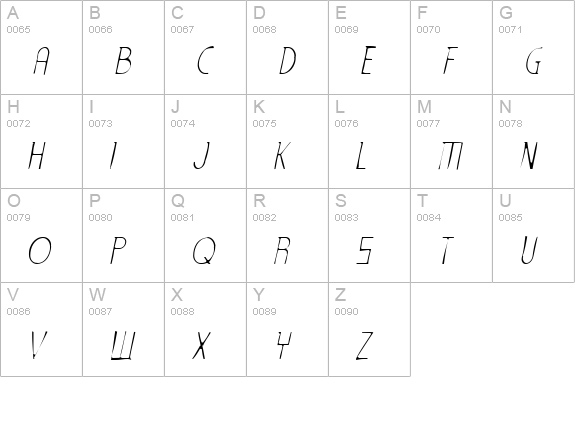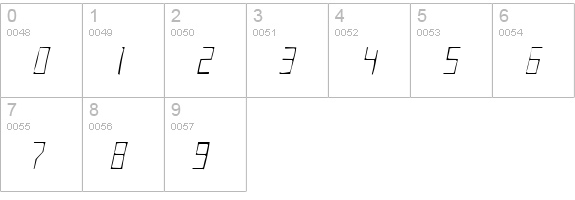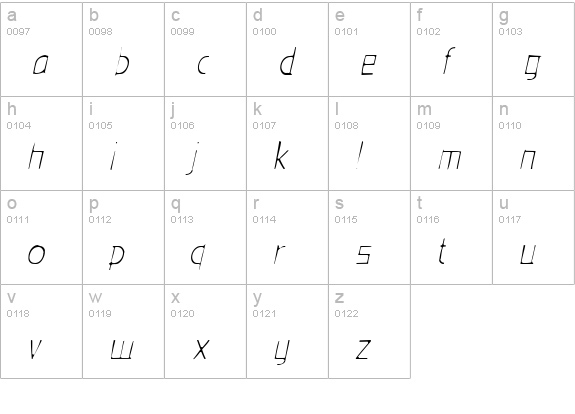
Eden Mills Gaunt Italic is a distinctive, italic variant in the Eden typeface family \xE2\x80\x94 well suited to design and typography projects.
Eden Mills Gaunt Italic font is a modern and elegant typeface that exudes sophistication and style. Its sleek and flowing design effortlessly captures attention and adds a touch of refinement to any project. This italic version of the font showcases a sense of movement and grace, making it perfect for conveying a sense of elegance and luxury. What makes Eden Mills Gaunt Italic font even more appealing is that it is available for free download at FontsMarket.com. This means that you can easily access this stunning typeface to elevate your designs without any cost. Whether you are working on branding materials, invitations, or any other creative project, Eden Mills Gaunt Italic font is sure to make a lasting impression. Don't miss out on the opportunity to enhance your work with this beautiful and freely available font.